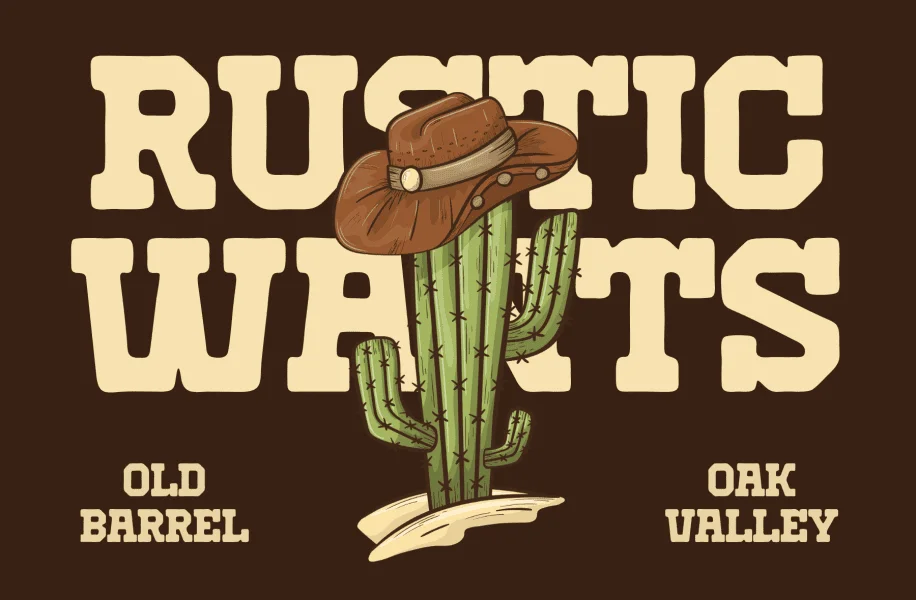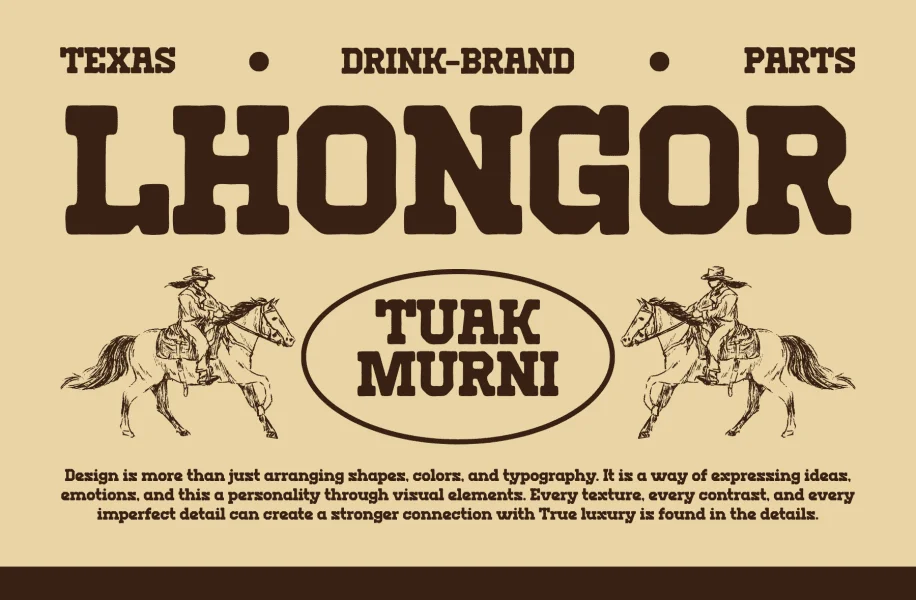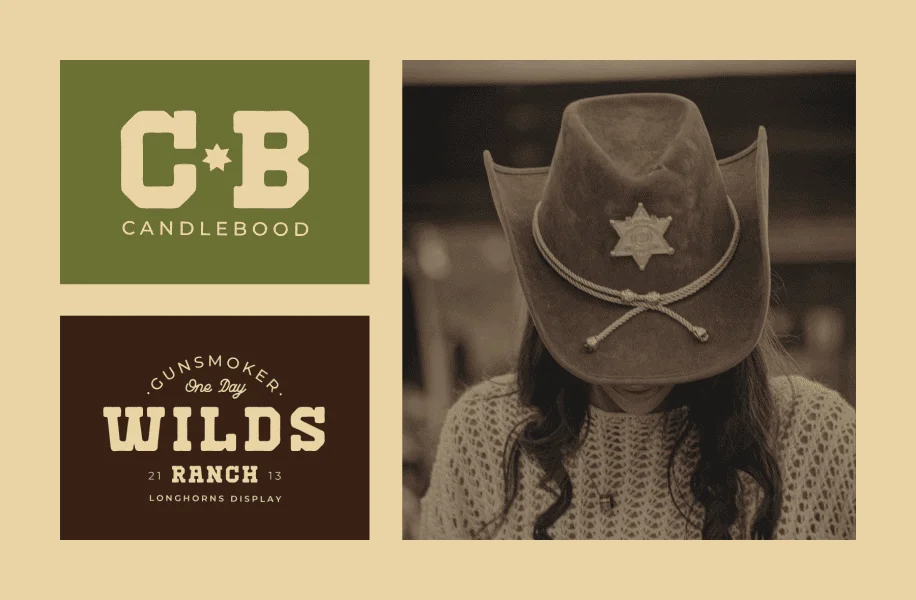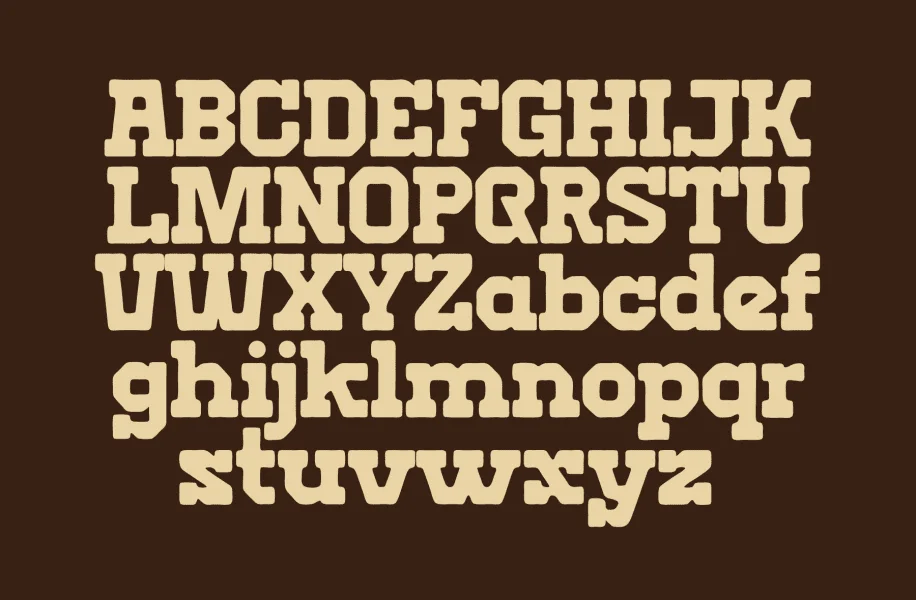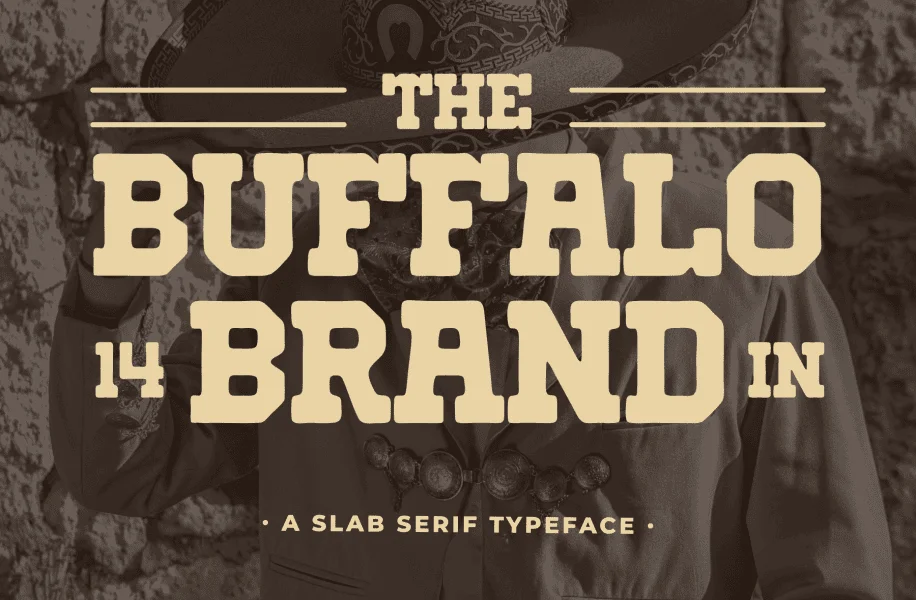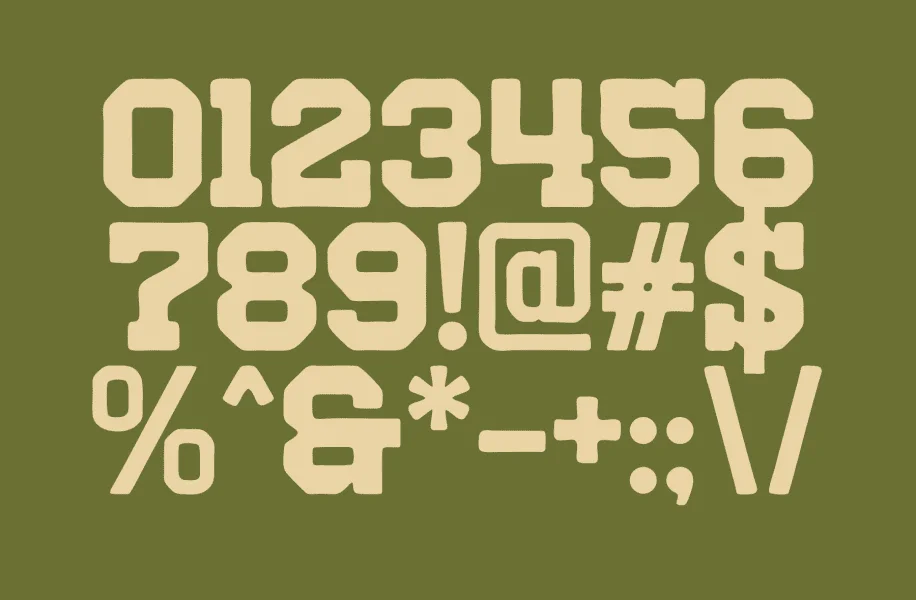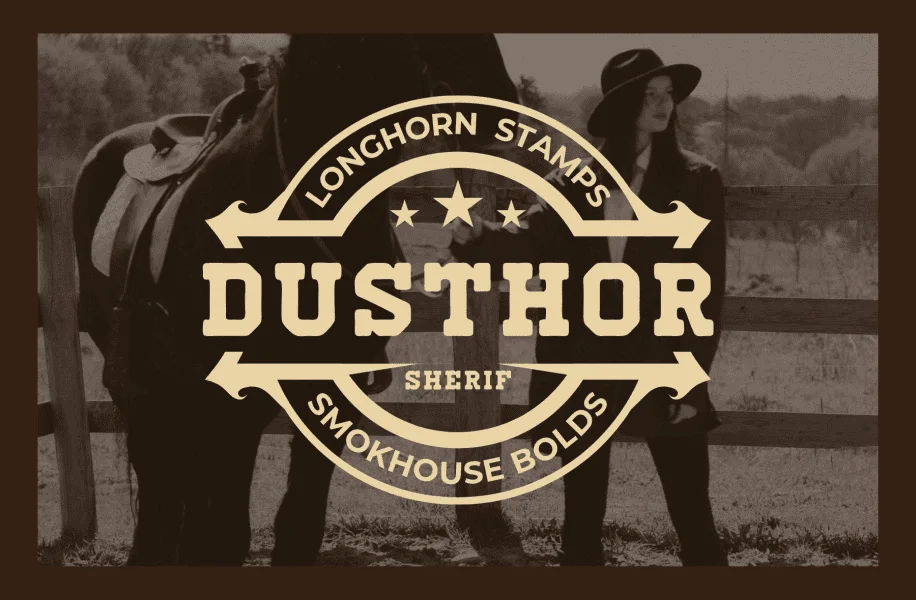
Introducing our new product Rust Smoke – Vintage Western Slab Serif
Rust Smoke is a bold vintage slab serif typeface inspired by classic western signage, rustic smokehouses, old saloons, and handcrafted Americana lettering. Featuring strong letterforms, chunky serifs, and a rugged character, this font delivers an authentic retro feel while maintaining excellent readability.
Perfect for branding, logo design, packaging, posters, labels, coffee shops, and vintage-themed projects, Rust Smoke brings a timeless handcrafted charm to any design. Its distinctive western personality makes it ideal for creating eye-catching headlines and memorable visual identities.
Whether you're designing a rustic brand, a retro-inspired poster, or a bold product label, Rust Smoke provides the perfect balance of strength, nostalgia, and character.